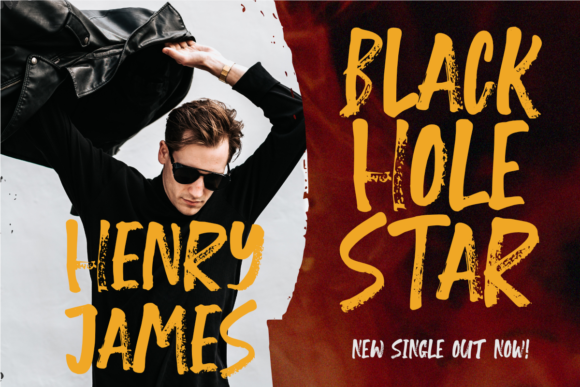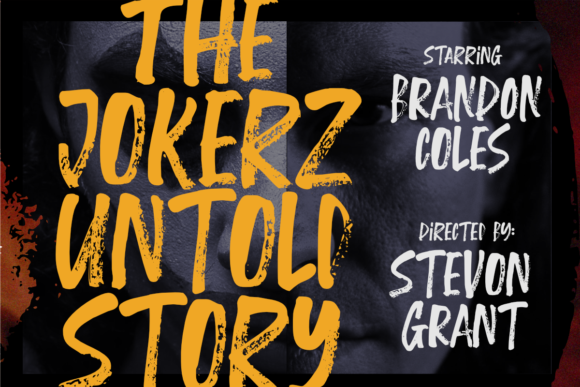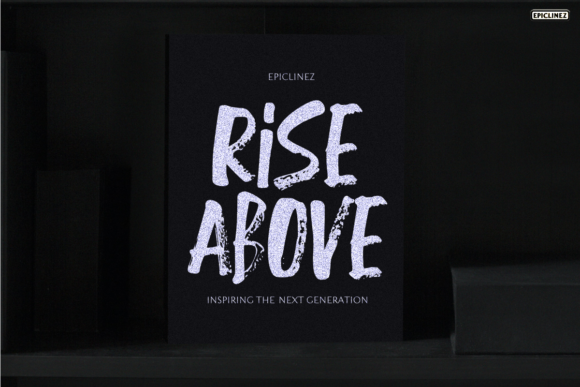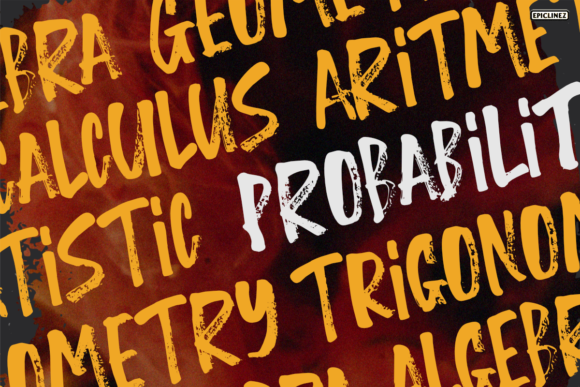
Walks of Life Font
About Walks of Life Font
Walks Of Life is a simple handwritten brush typeface. Carefully handcrafted to grab the attention of the viewers, this font is ideal for logos, posters, headlines, branding, apparel and so much more.